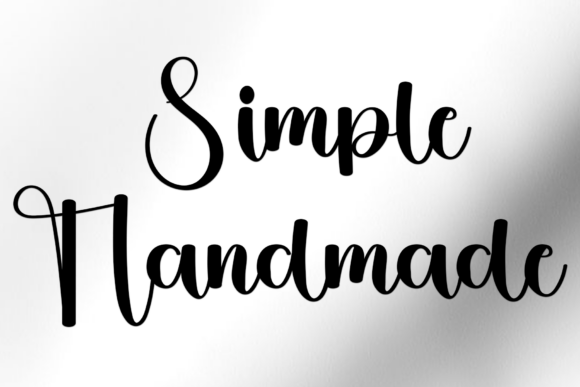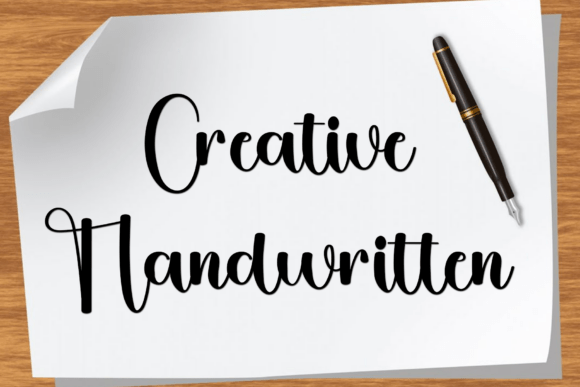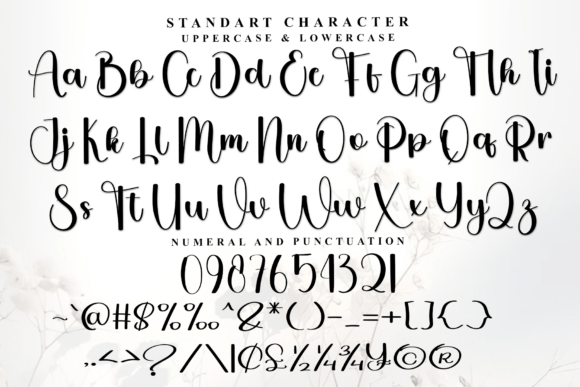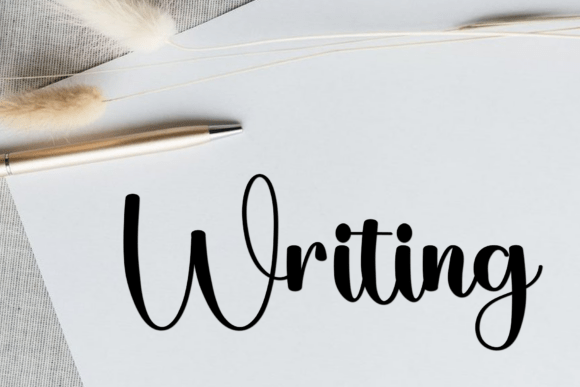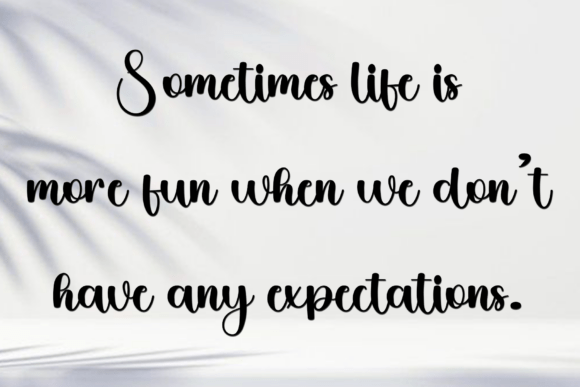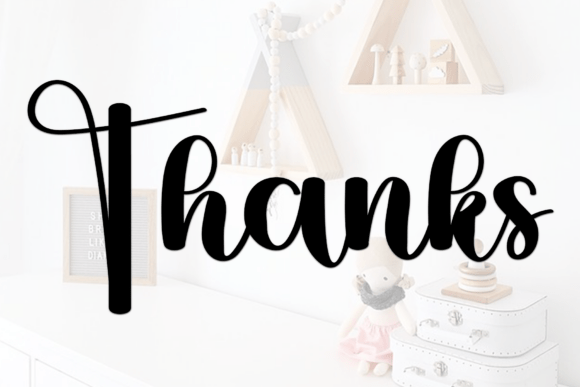
Introducing Graphic Handwriting Font: Elevate Your Designs with a Personal Touch
Are you looking for a font that can add a personal touch to your designs? Do you want to create a unique and authentic look that stands out from the crowd? Look no further than Graphic Handwriting Font, a charming and versatile simple script font that is perfect for designers and crafters alike.
A Sleek and Modern Feel
Graphic Handwriting Font boasts a sleek and modern feel that is perfect for a wide range of design applications. Its tall, clean letterforms and relaxed baseline give it a fresh and contemporary look that is sure to impress. The font’s natural, fluid connections make it look like it was written with a delicate pen, adding a touch of elegance and sophistication to any design.
Perfect for Personal Branding
Personal branding is all about creating a unique and recognizable identity that sets you apart from others. Graphic Handwriting Font is perfect for personal branding, as it provides a friendly and authentic look that is sure to resonate with your audience. Whether you’re a designer, artist, or entrepreneur, this font is an excellent choice for creating a consistent and professional brand image.
Use it for Photography Watermarks
Photography watermarks are an essential part of protecting your images and adding a professional touch to your portfolio. Graphic Handwriting Font is an excellent choice for photography watermarks, as it provides a subtle yet elegant look that won’t distract from your images. The font’s clean and simple design ensures that it will complement your photos without overpowering them.
Social Media Quotes and Graphics
Social media is all about creating engaging and shareable content that resonates with your audience. Graphic Handwriting Font is perfect for creating social media quotes and graphics, as it provides a friendly and approachable look that is sure to grab attention. The font’s modern feel and fluid connections make it ideal for creating inspirational quotes, motivational messages, and other types of content that are designed to engage and inspire.
Casual Wedding Stationery and More
Graphic Handwriting Font is also perfect for casual wedding stationery, as it provides a romantic and elegant look that is sure to impress. The font’s simple and clean design makes it easy to read and understand, while its fluid connections add a touch of whimsy and romance. Whether you’re creating wedding invitations, save-the-date cards, or thank-you notes, this font is an excellent choice.
Key Features of Graphic Handwriting Font
- Charming and versatile simple script font: Graphic Handwriting Font is a unique and versatile font that is perfect for a wide range of design applications.
- Sleek and modern feel: The font’s tall, clean letterforms and relaxed baseline give it a fresh and contemporary look.
- Natural, fluid connections: The font’s fluid connections make it look like it was written with a delicate pen.
- Perfect for personal branding: Graphic Handwriting Font provides a friendly and authentic look that is sure to resonate with your audience.
- Great for photography watermarks: The font’s clean and simple design ensures that it will complement your photos without overpowering them.
Graphic Handwriting Font is a charming and versatile simple script font that is perfect for designers and crafters alike. Its sleek and modern feel, natural fluid connections, and clean letterforms make it an excellent choice for a wide range of design applications. Whether you’re creating personal branding materials, photography watermarks, social media graphics, or casual wedding stationery, this font is sure to elevate your designs and add a personal touch.